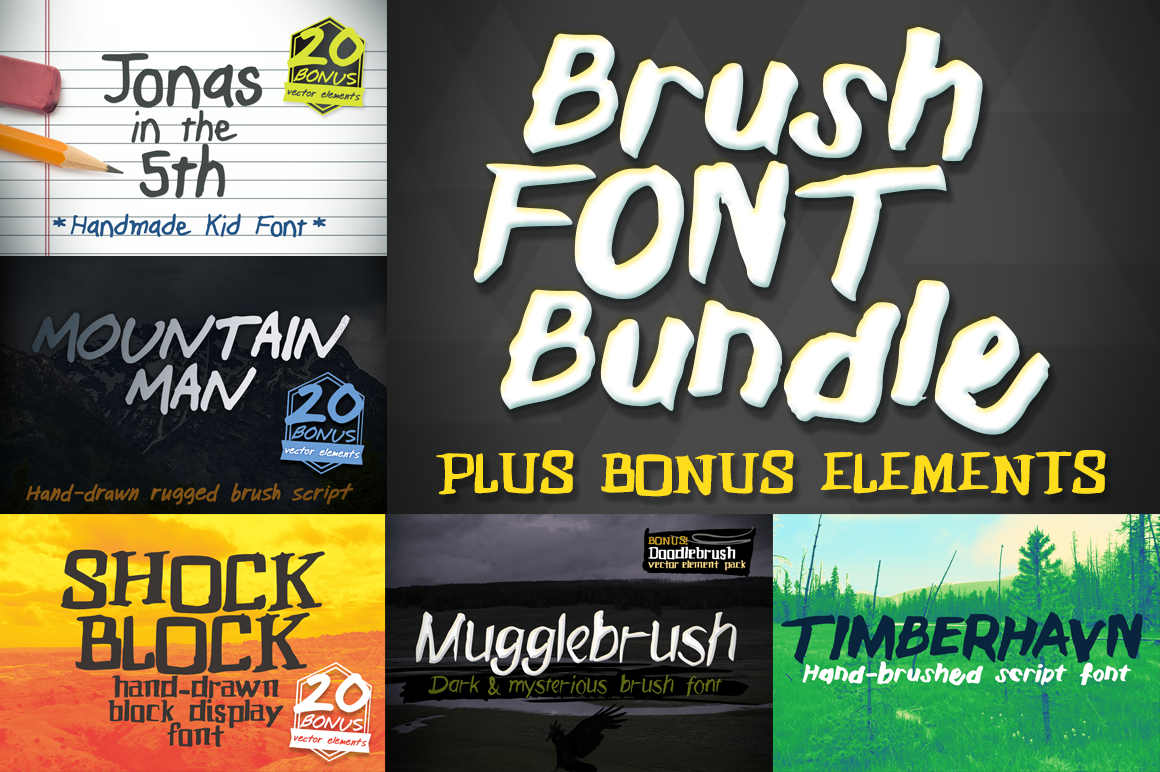
Brush Font Bundle
For a limited time - get all 5 of our fresh hand-drawn OTF fonts for one low price, plus bonus vector elements. They're ready for your logos, posters, apparel and more.
JONAS IN THE 5th - Handmade kid font https://crmrkt.com/5er80
MOUNTAIN MAN - Hand-drawn rugged brush script https://crmrkt.com/5d258
SHOCK BLOCK - Hand-drawn block display font https://crmrkt.com/JP73R
MUGGLEBRUSH - Dark & mysterious brush font https://crmrkt.com/G1mz5
TIMBERHAVN - Hand-brushed script font https://crmrkt.com/VAMeM